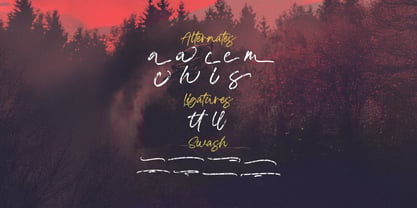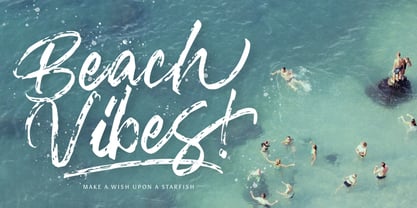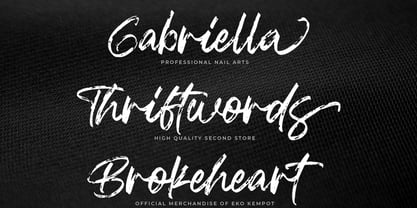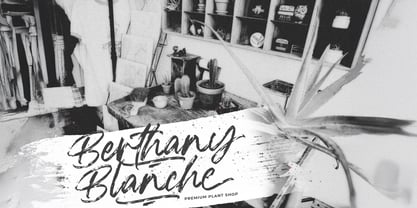
La familia tipográfica Blackwell fue diseñada por Virgiawan Listanto y publicada por Stringlabs Creative Studio. Blackwell contiene 1 estilos.
Blackwell is a bold textured brush font that radiates raw power and handcrafted energy. With its rough edges, dynamic strokes, and rebellious vibe, this font is made for designs that demand impact and authenticity. Perfect for posters, branding, music covers, and streetwear, Blackwell brings an intense, creative force that’s hard to ignore.
Blackwell